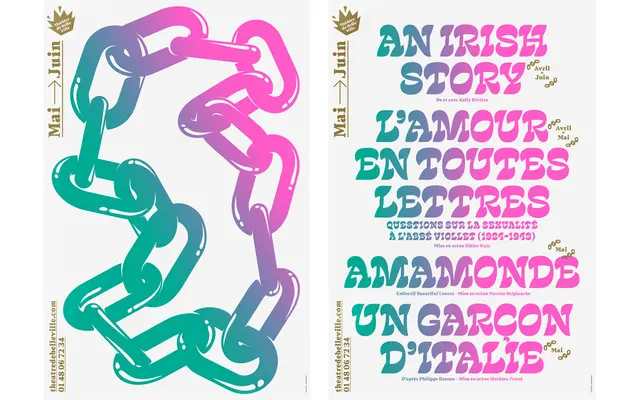
CoFo Chimera
Contrast Foundry · Maria Doreuli · 2018
A reversed-contrast display family by Maria Doreuli that reframes the genre's intentional ugliness as something calligraphic and elegant.
Where historical reversed-contrast typefaces courted deliberate strangeness, CoFo Chimera draws on a broad-nib calligraphic angle of 45° to produce letterforms that feel characterful rather than awkward. The family spans five styles: three high-contrast weights for display use and two lower-contrast companions suited to smaller sizes, each drawn from scratch rather than interpolated. Latin and Cyrillic coverage makes it practical across a range of editorial and identity contexts.
CoFo Chimera is a reversed-contrast display typeface influenced by calligraphy at a steep 45° angle, with high-contrast statement styles and lower-contrast text companions. Reversed contrast places it firmly in display territory.